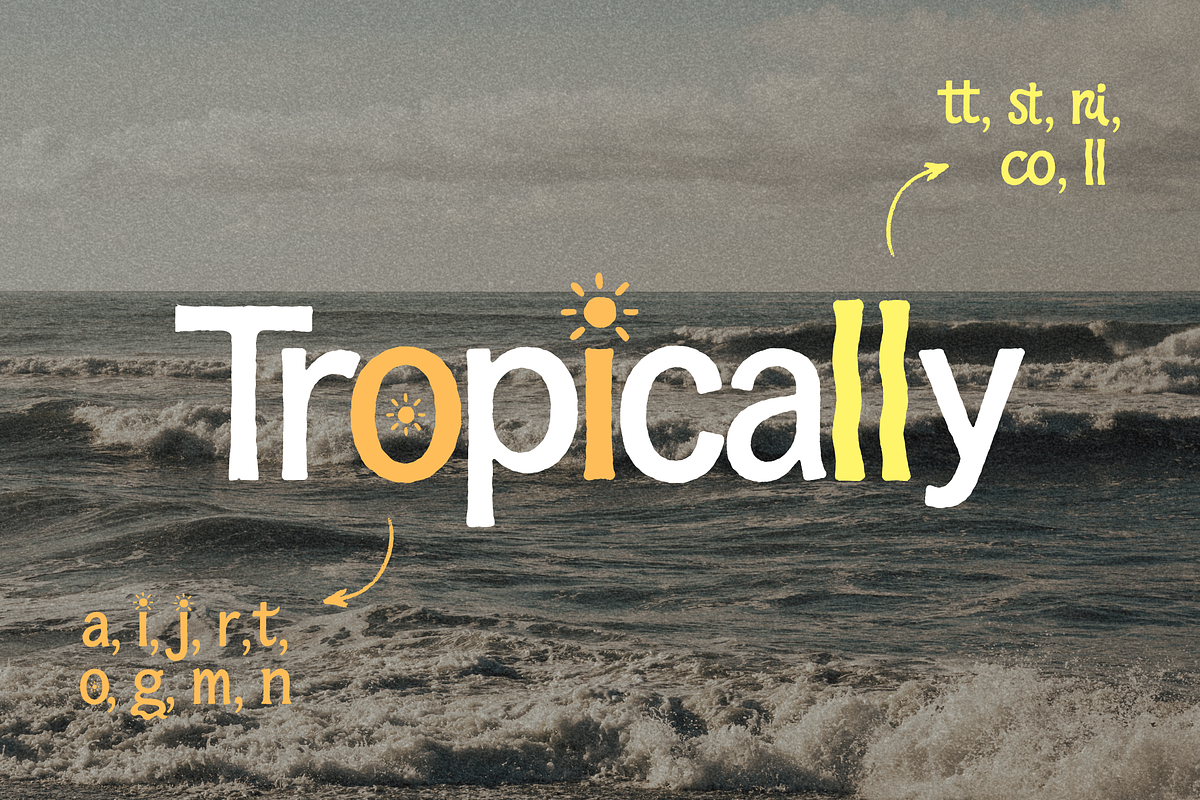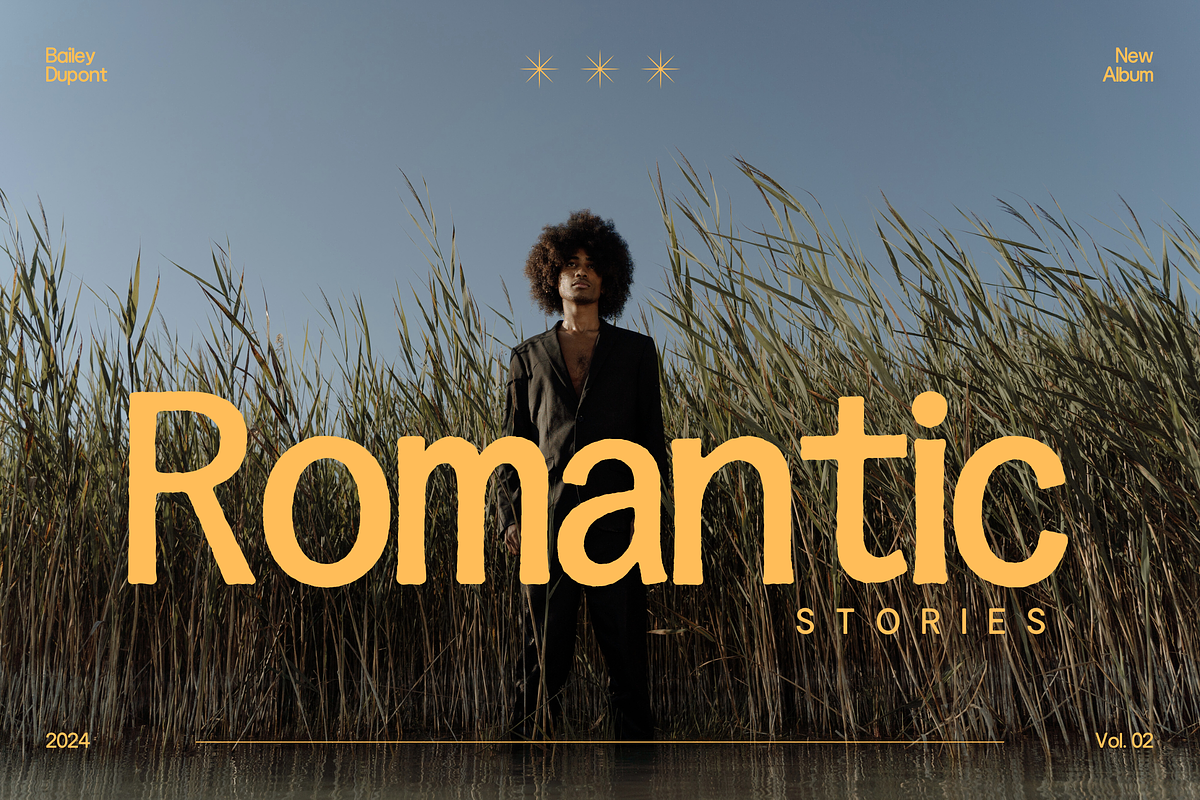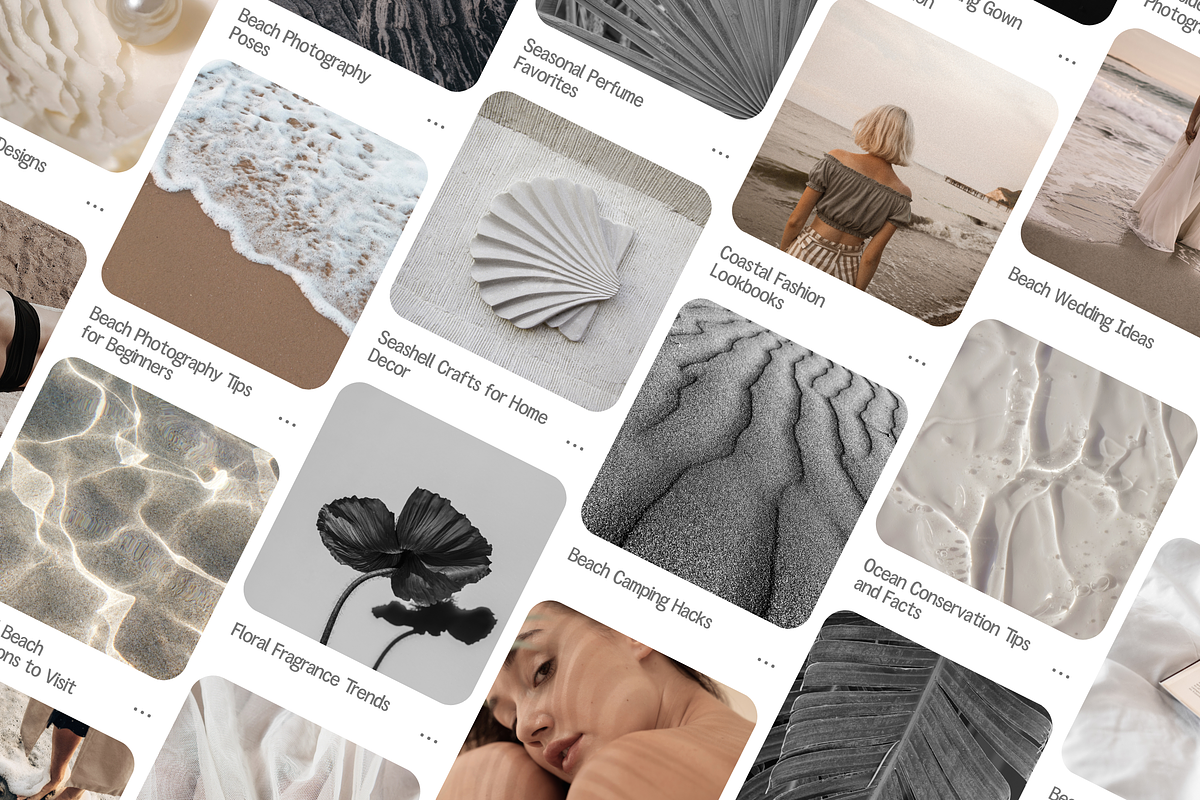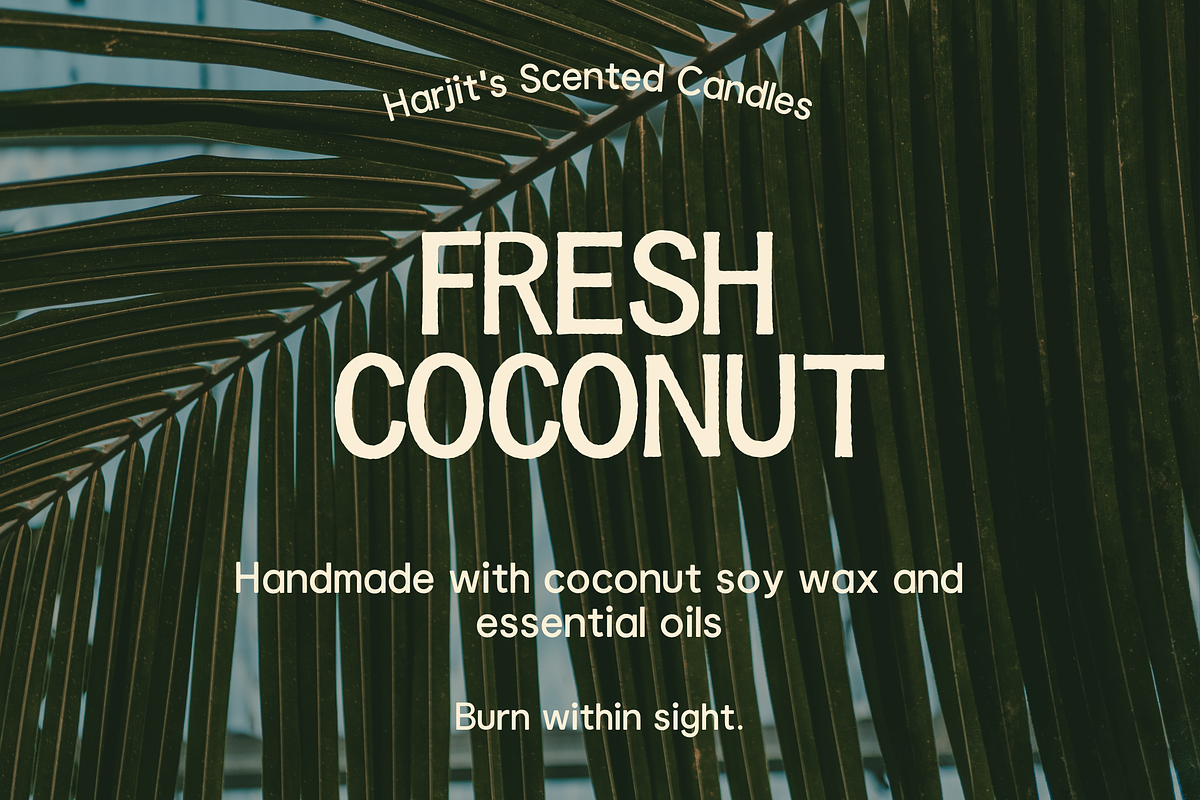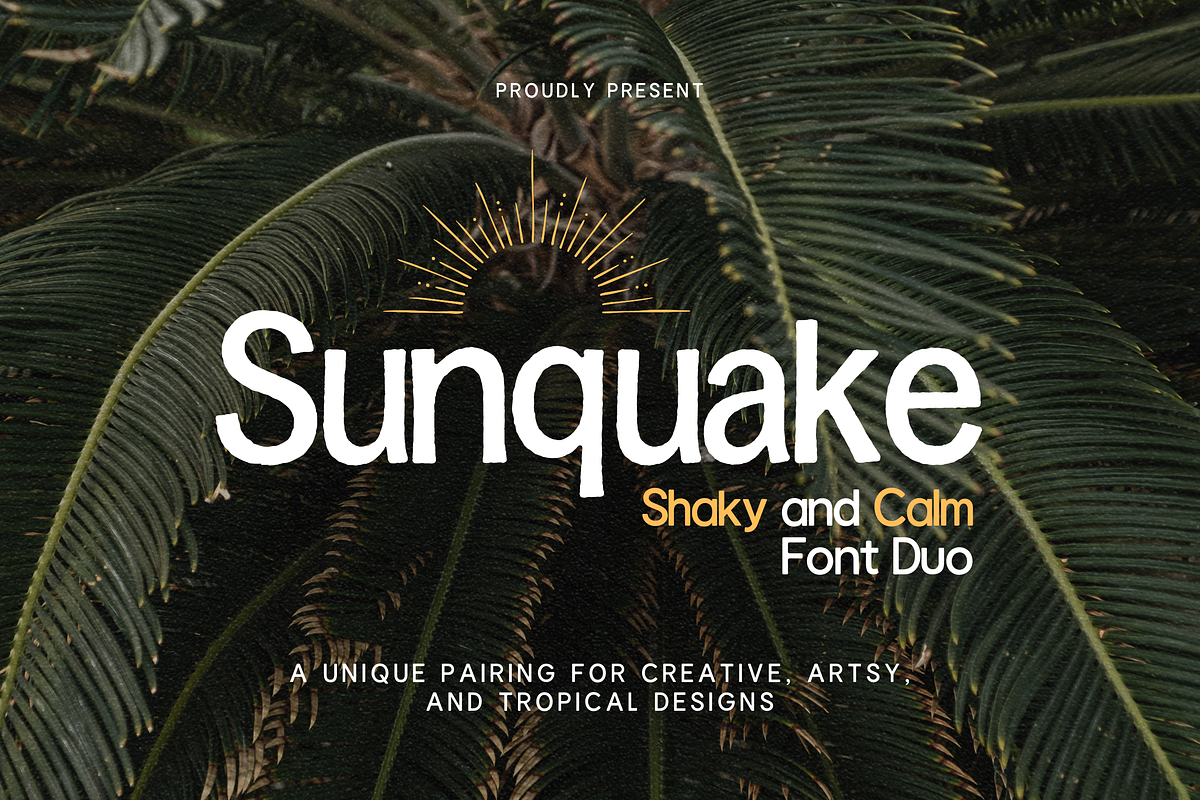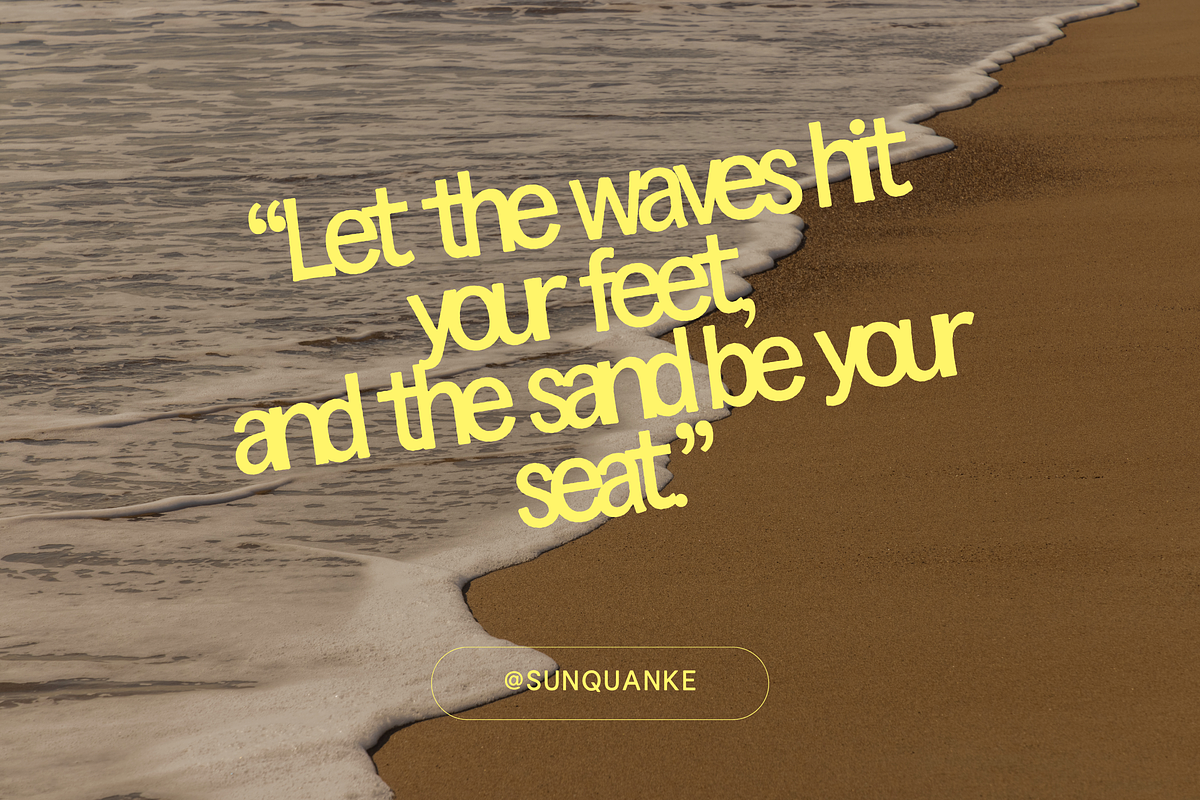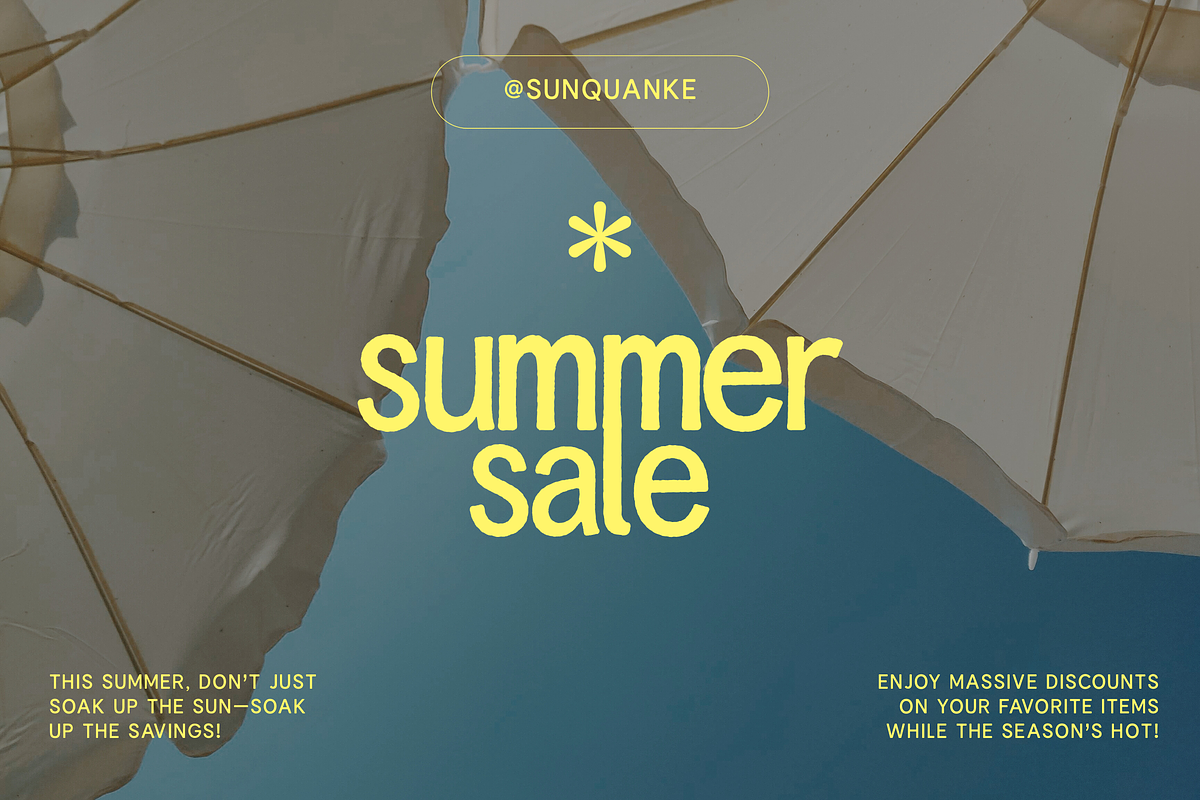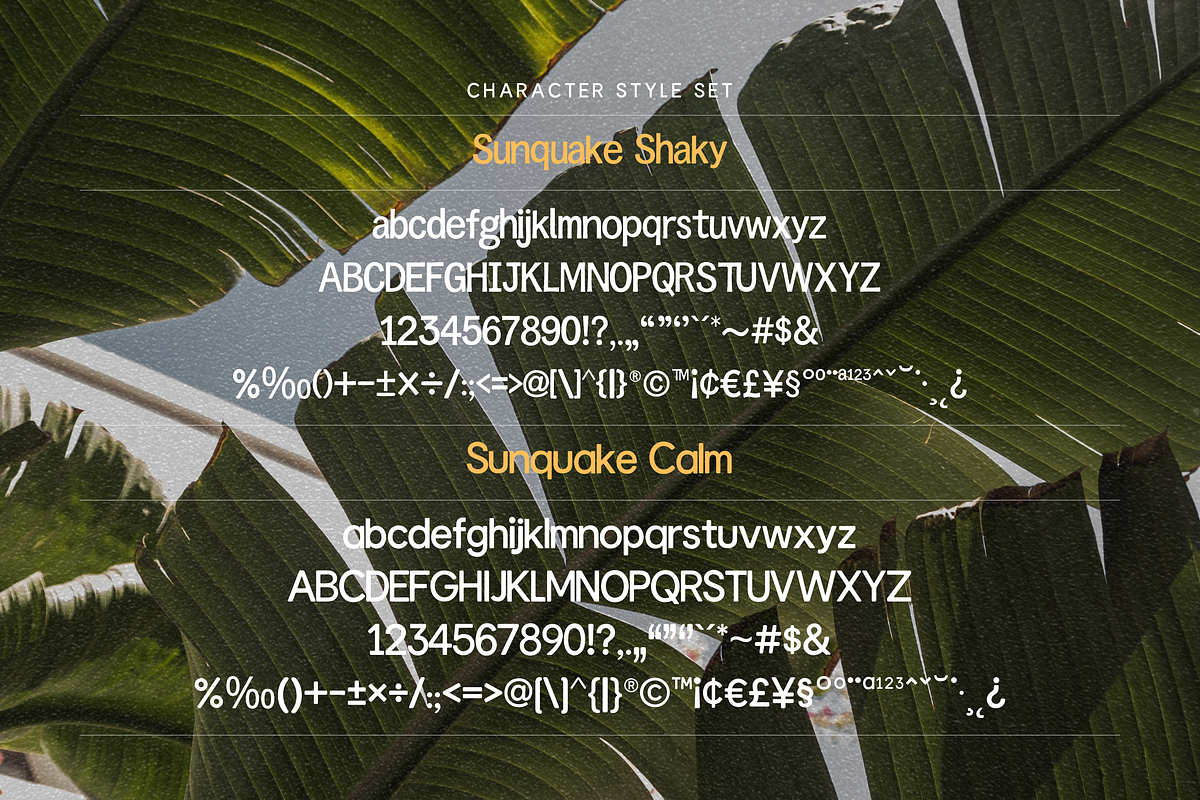
Sunquake - Shaky Display & Calm Font
🌞 Sunquake Font Duo: Shaky Display & Calm Sans Serif
A Unique Pairing for Creative, Artsy, and Tropical Designs
Sunquake Font Duo combines the playful and organic charm of "Sunquake" with the sleek, modern functionality of "Sunquake Calm." Together, they create the perfect combination for any project that demands personality and readability. Whether you're designing a tropical brand identity, a vintage-inspired poster, or a minimalist website, this duo brings both creative freedom and balance to your design toolkit.
- Sunquake – Display Font (Shaky, Handwritten Vibes)
- Sunquake Calm – Sans Serif Companion (Clean, Rounded, Geometric)
🎨 Font Features:
Sunquake:
- Shaky, distorted style with irregular strokes for a handmade, vintage feel.
- Perfect for headlines, logos, and bold statements.
- Includes alternate characters with unique swashes and ligatures.
Sunquake Calm:
- Geometric, sans-serif with soft, rounded terminals and even stroke width.
- Designed for body text, subheadings, or captions in print and digital formats.
- Pairs beautifully with Sunquake for harmonious visual compositions.
- OpenType Features – Includes a set of stylistic alternates and ligatures for added customization.
Font Pairing Example:
Headline: Sunquake Body Text: Sunquake Calm
Perfect balance for that tropical yet modern feel 🌞🌿